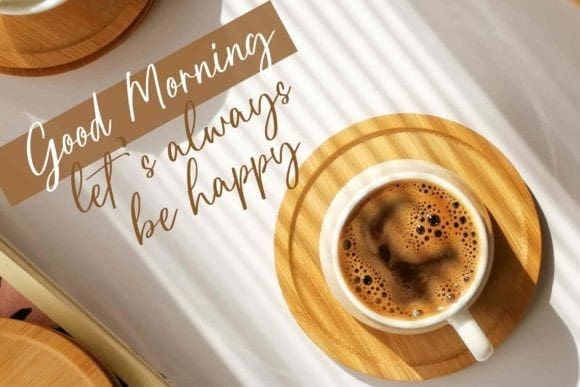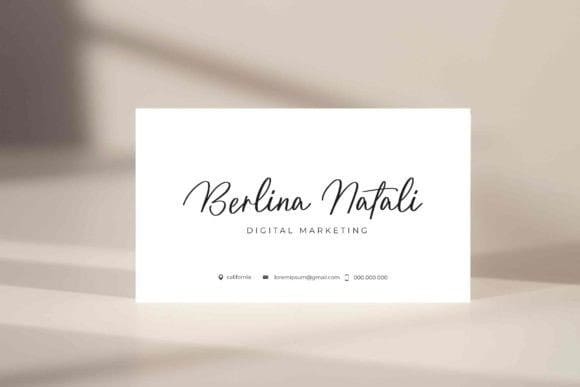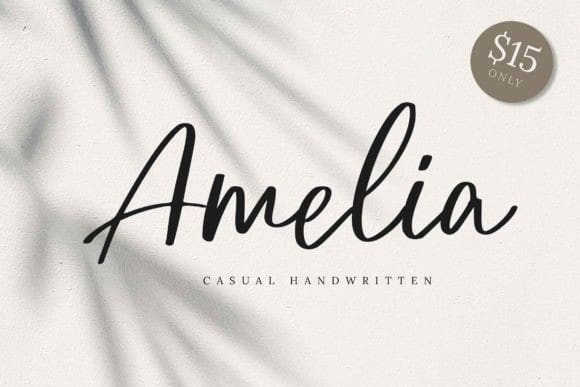
Amelia Casual Script Font
Amelia Casual Script Font is a neat and casual handwritten script font. No matter the topic, this font will be an incredible asset to your fonts’ library, as it has the potential to elevate any creation.